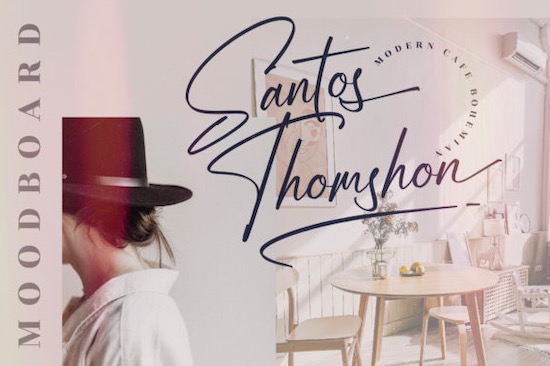
Sallinas Franklyn Font is a gorgeous and delicate handwritten script typeface. It has beautiful and well balanced characters and as a result, it matches a wide pool of designs. This font is PUA encoded which means you can access all of the glyphs and swashes with ease!
Sallinas Franklyn Handwritten Font